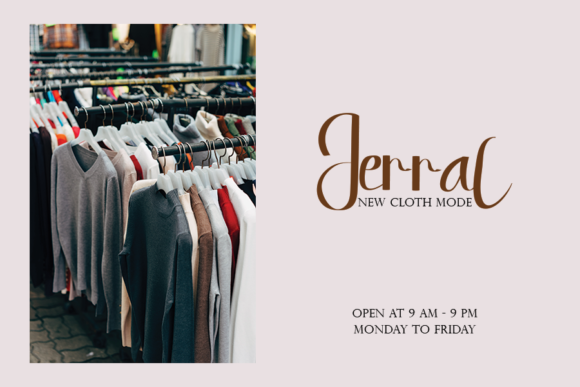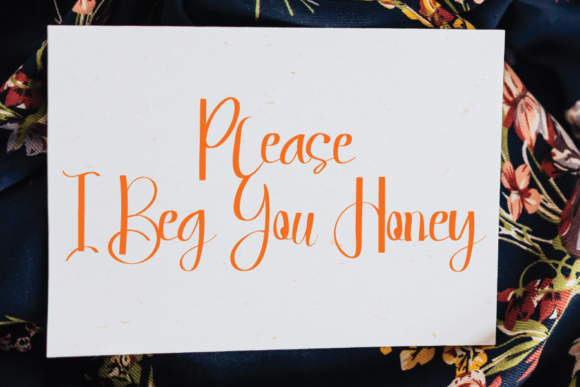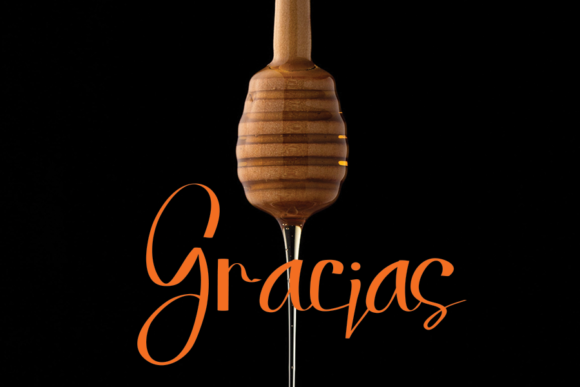
Honey Jar Font
About Honey Jar Font
Honey Jar is a cute and friendly handwritten font. Playful and a little bit quirky, this font is the perfect fit for all of your logos, branding, posters, and crafty DIY projects.